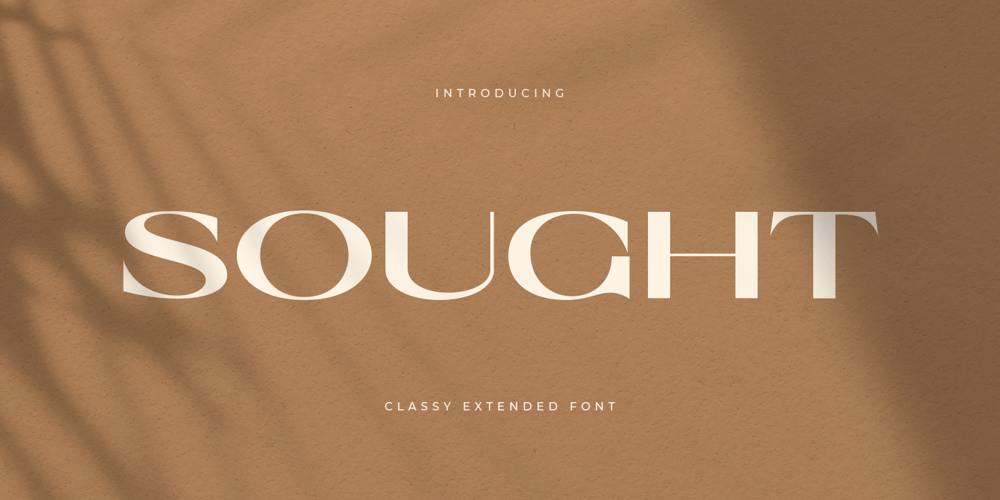
Sought
Sought font
Sought Font Family was designed by Zamroni Hamzah and published by Sensatype Studio. Sought contains 1 styles and family package options. SOUGHT is a Modern Classy Extended Serif FontA new Serif font that we created special for logo and branding needs, with extended shape that will add your brand value. It so nice to leverage designer or product owner that need solutions to make their design look more classy and stunning. And specially for SOUGHT font, We prepared only uppercase characters to help you create any creative things specially for logotype or wordmark.SOUGHT Modern Classy Extended Serif font ready with: Perfect characters for beauty or fashion brand Preview as a inspirations that you can do with SOUGHT font Ready with all Uppercase characters Wish you enjoy our font. 🙂